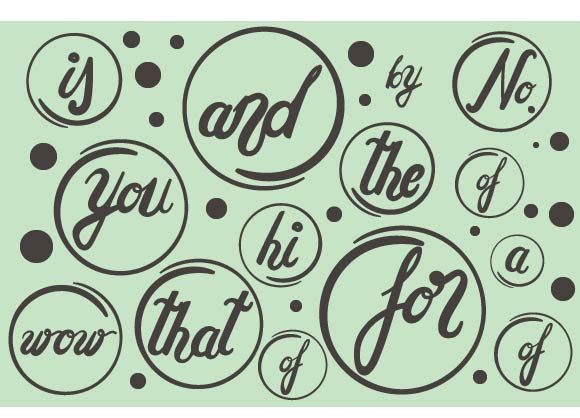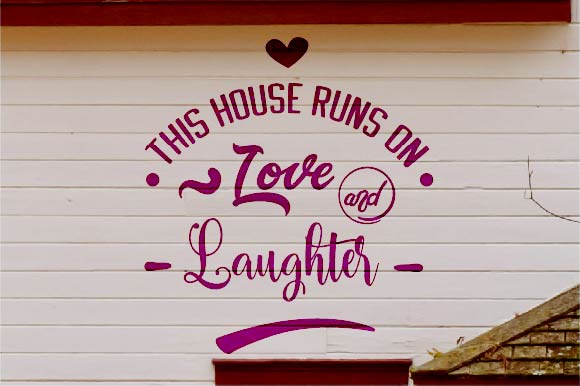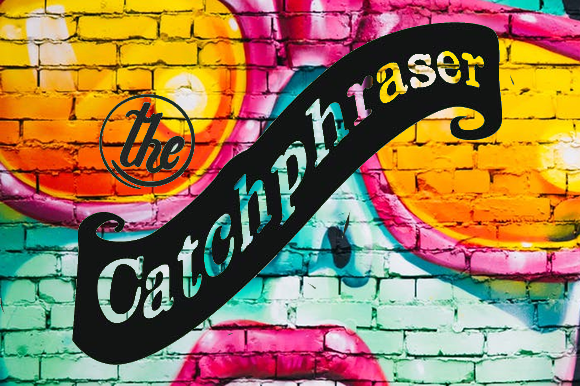
Catchphraser Font: Add a Touch of Fun to Your Designs
Are you tired of using the same old fonts in your designs? Look no further than Catchphraser, a fun decorative font that’s perfect for adding a touch of personality to your work. In this article, we’ll take a closer look at Catchphraser and explore how you can use it to take your designs to the next level.
What is Catchphraser?
Catchphraser is a unique and playful font that’s filled with hand-lettered catchwords. It’s a decorative font that’s designed to add a fun and creative element to your designs. With Catchphraser, you can add a touch of whimsy and personality to your work, making it perfect for designers and crafters who want to stand out from the crowd.
Key Features of Catchphraser
So, what makes Catchphraser so special? Here are just a few of its key features:
- Hand-lettered catchwords: Catchphraser is made up of hand-lettered catchwords that are sure to add a touch of fun and personality to your designs.
- Decorative font: Catchphraser is a decorative font that’s perfect for adding a creative element to your work.
How to Use Catchphraser
So, how can you use Catchphraser in your designs? Here are a few ideas to get you started:
- Add a fun title: Use Catchphraser to add a fun and creative title to your design. Whether you’re working on a poster, a brochure, or a website, Catchphraser is sure to make your title stand out.
- Create a playful quote: Catchphraser is perfect for creating playful quotes that will add a touch of personality to your design.
- Add a decorative element: Use Catchphraser to add a decorative element to your design. Whether you’re working on a logo, a business card, or a social media graphic, Catchphraser is sure to add a touch of fun and creativity.
Benefits of Using Catchphraser
So, why should you use Catchphraser in your designs? Here are just a few benefits:
- Adds personality: Catchphraser adds a touch of personality to your designs, making them more engaging and fun.
- Stand out from the crowd: Catchphraser is a unique font that’s sure to make your designs stand out from the crowd.
Who is Catchphraser for?
Catchphraser is perfect for designers and crafters who want to add a touch of fun and personality to their work. Here are a few examples of who might benefit from using Catchphraser:
- Graphic designers: Graphic designers who want to add a creative element to their designs will love Catchphraser.
- Crafters: Crafters who want to add a personal touch to their projects will love Catchphraser.
- Small business owners: Small business owners who want to create fun and engaging marketing materials will love Catchphraser.
In conclusion, Catchphraser is a fun and decorative font that’s perfect for adding a touch of personality to your designs. With its hand-lettered catchwords and easy-to-use design, Catchphraser is sure to become a favorite among designers and crafters. Whether you’re working on a graphic design project, a crafting project, or a marketing campaign, Catchphraser is sure to add a touch of fun and creativity.